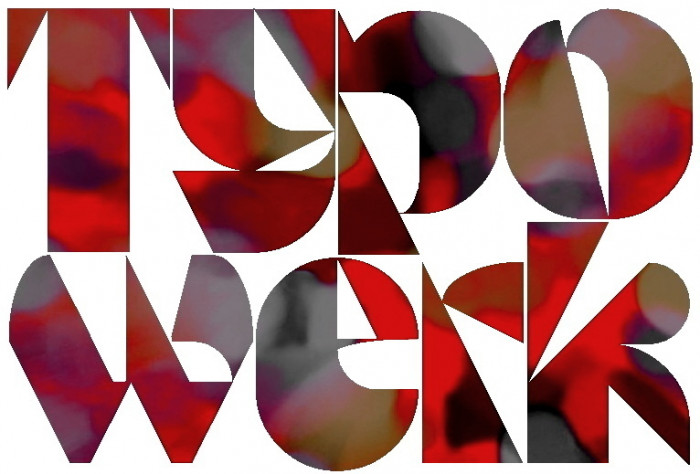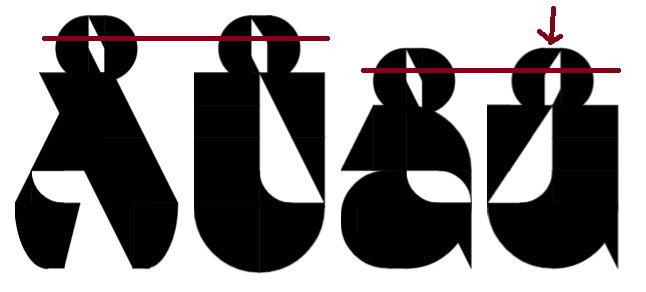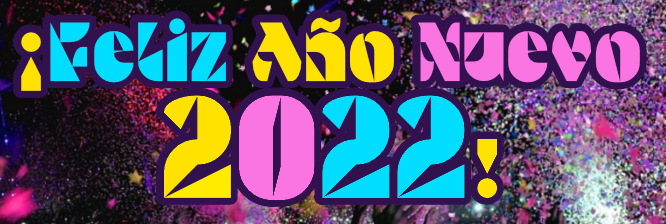
I think the ring accent on lowercase ů should be checked… It seems to be flipped horizontally…
(The horizontal lines in this sample are perfectly straight)
Beautiful work! The basic set of bricks give it a suggestion of brushstrokes and the diagonals make it very dynamic.
@BWM: Wrong or not, all this has been intentional. Thanks for your support and comments.
☀︎ … the sun is rising. That is fantastic!
This is absolutely fantastic. The letters constructed of simple geometric elements, and yet their shapes are suggestive of bold brush strokes. Fascinating. Great work. 10/10
oops. i almost confused this with zanval eYe/FS